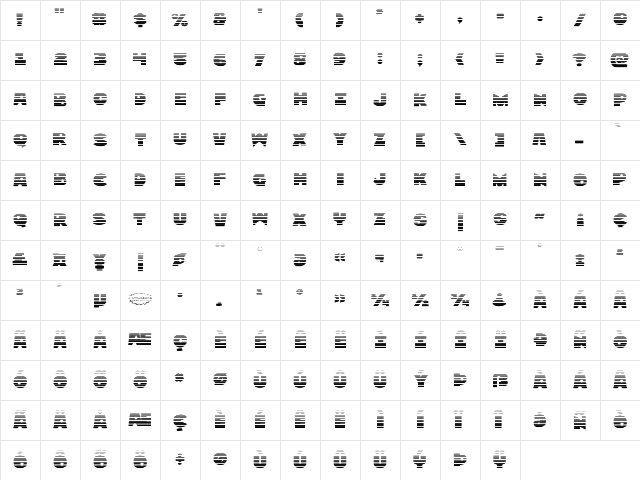
Zounderkite Gradient Regular
Design Context for Zounderkite Gradient Typeface
Zounderkite Gradient is a composed and adaptable typeface that performs quietly and consistently across a wide range of design contexts.